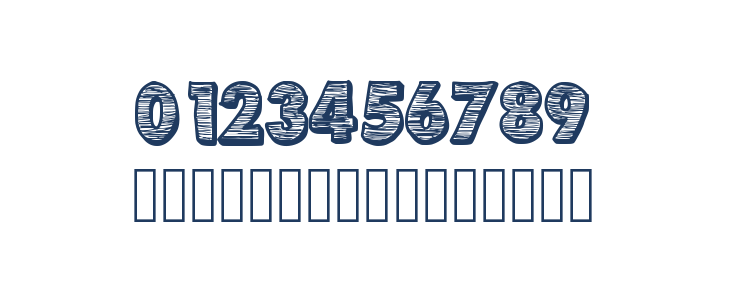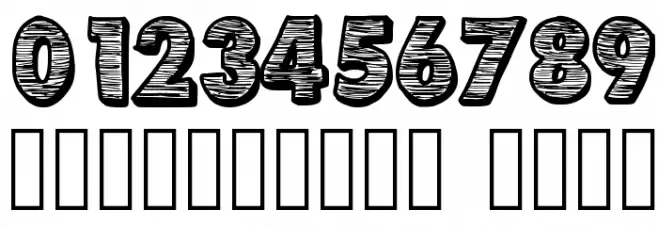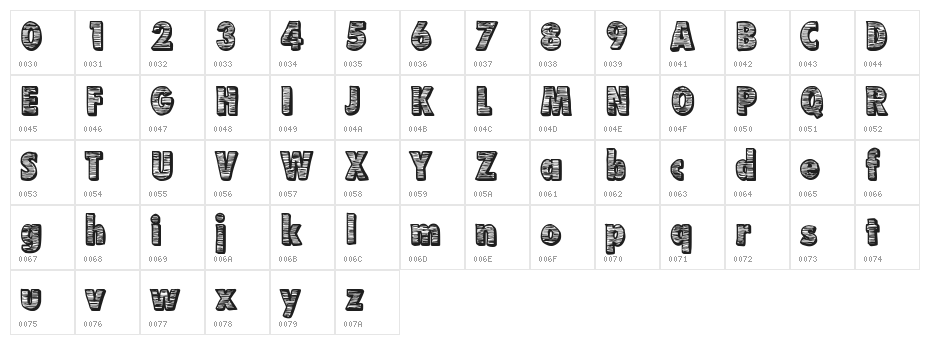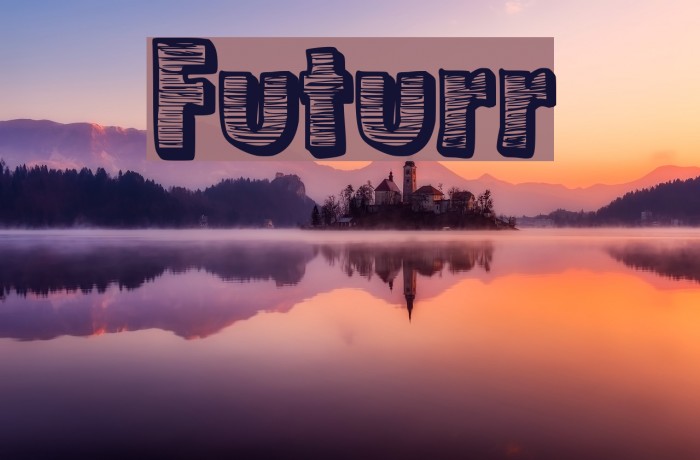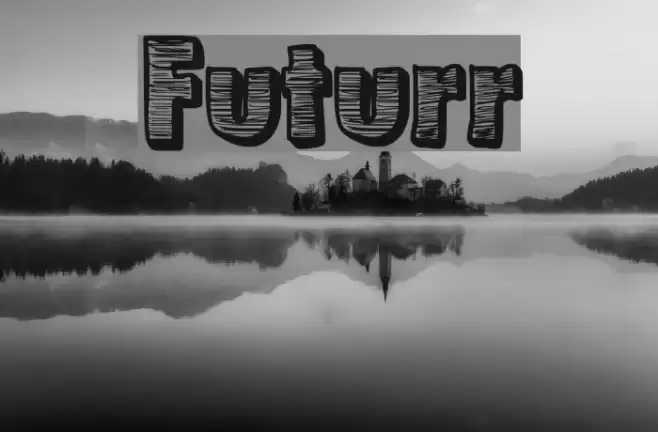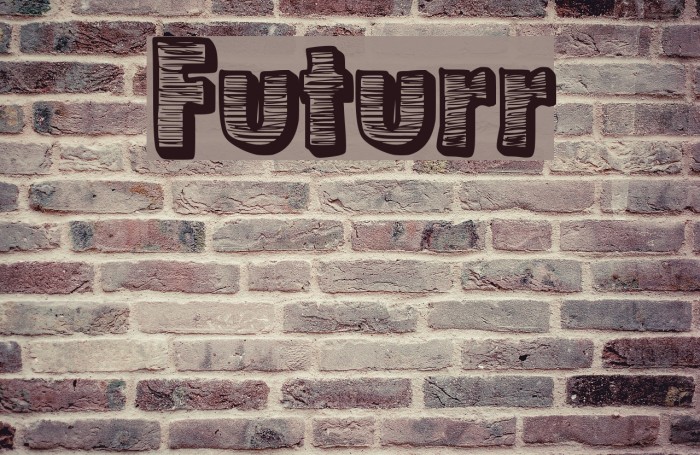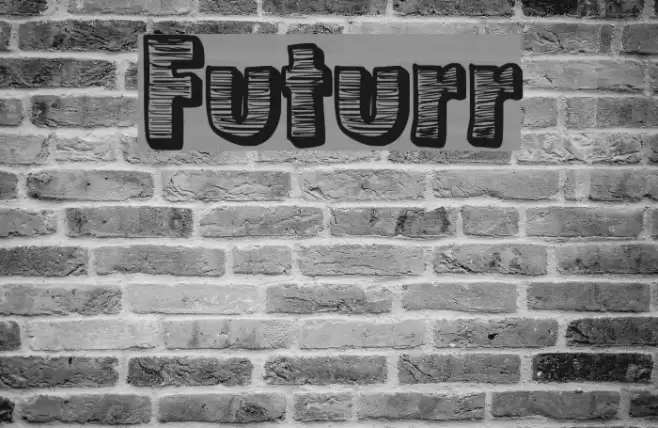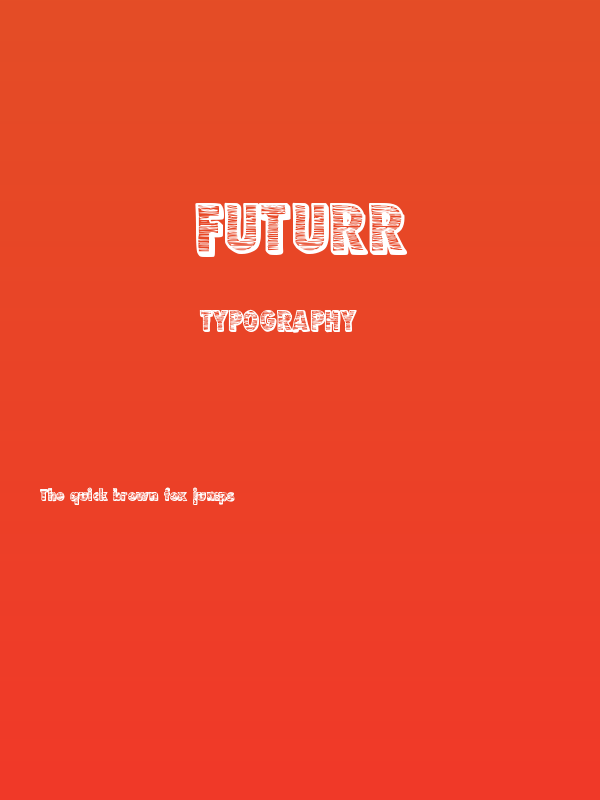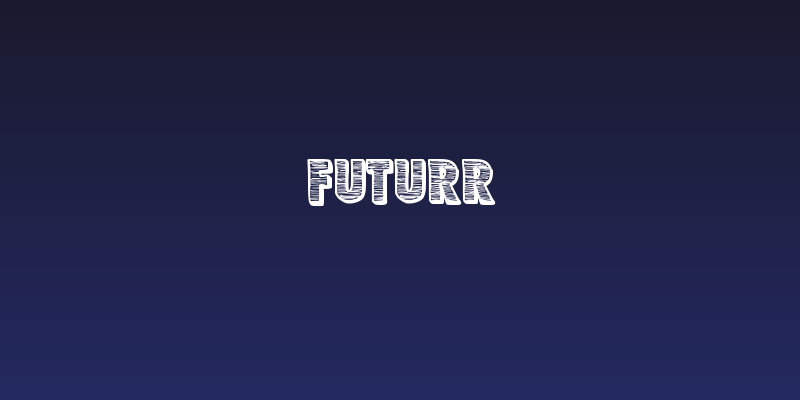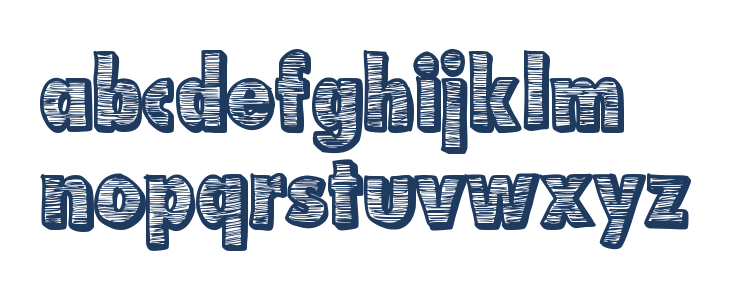
Futurr Font
Futurr Description
This font features a bold, hand-drawn style with a textured, sketch-like appearance. The characters are outlined with a thick, black stroke, and the interior is filled with horizontal lines that give it a unique, artistic look. The uppercase and lowercase letters maintain a consistent width, providing a cohesive appearance across all characters. The numbers and special characters follow the same design principles, ensuring uniformity throughout the font. This style is eye-catching and playful, making it suitable for creative projects.
| Overall Style | Playful, Artistic |
| Proposed Projects | Ideal for posters, children's books, comic strips, and creative branding projects. |